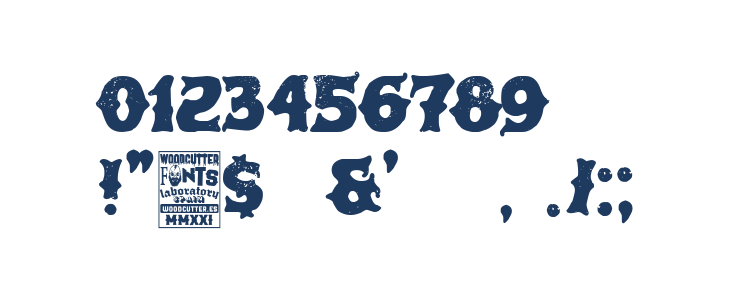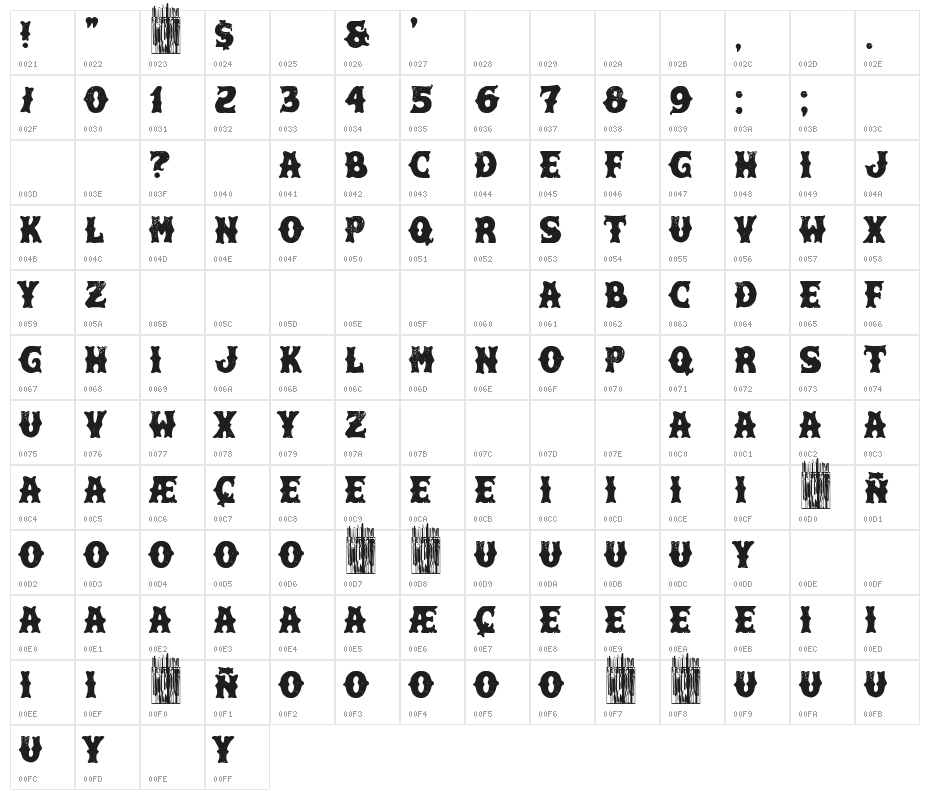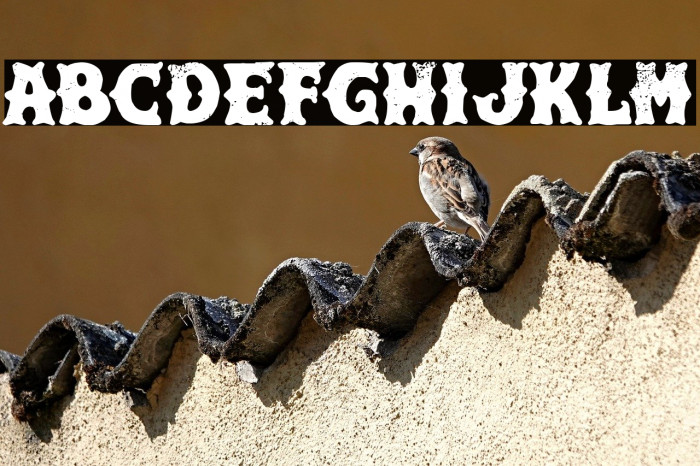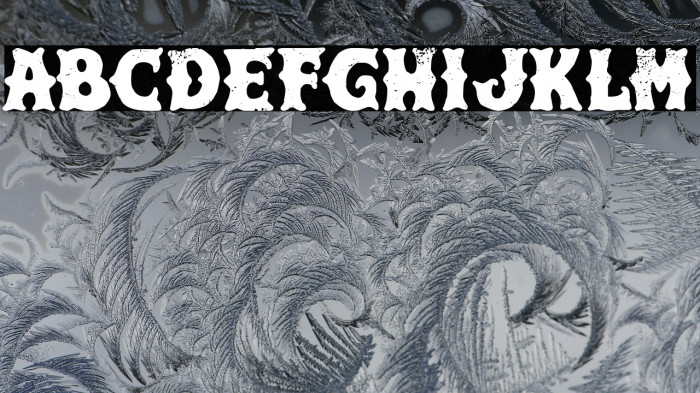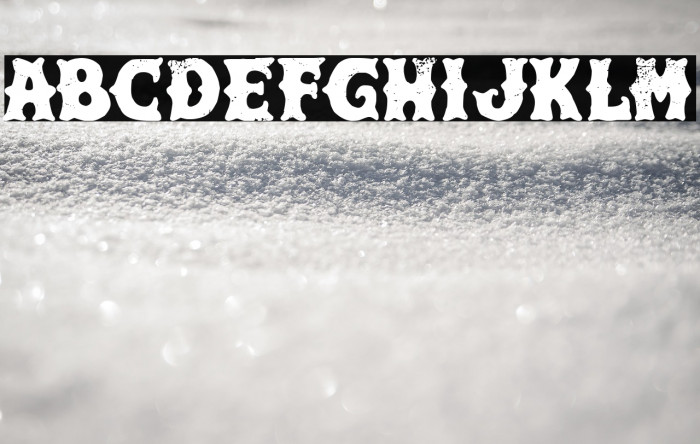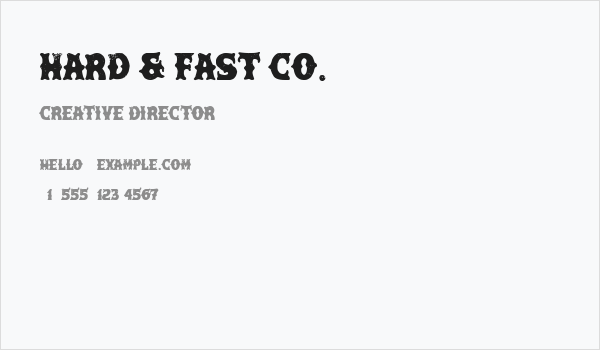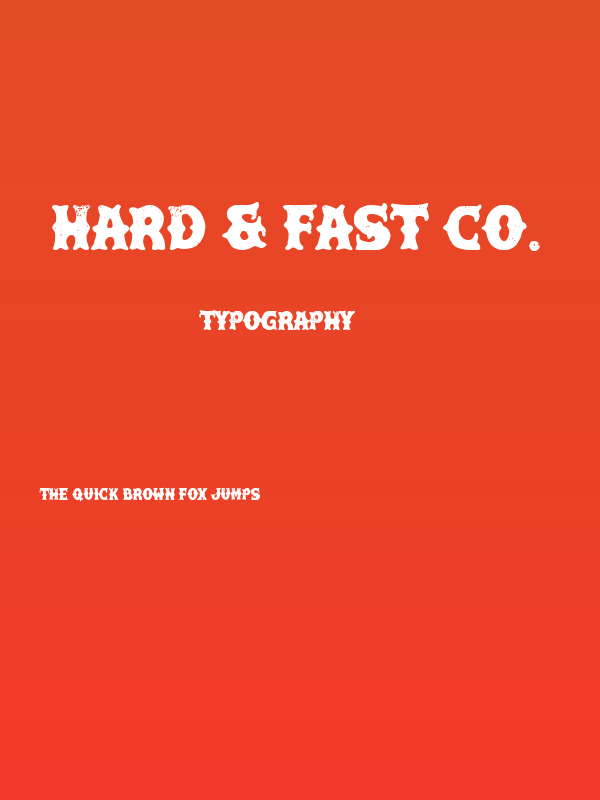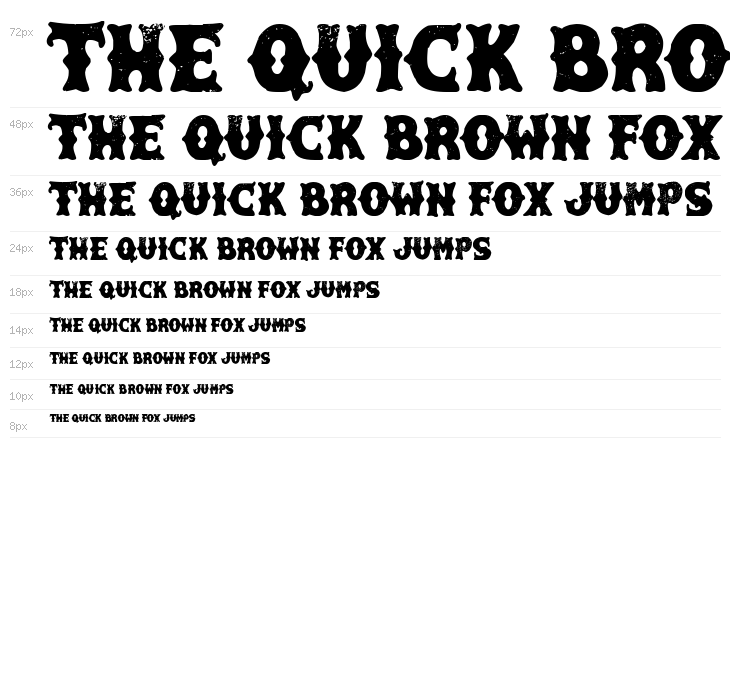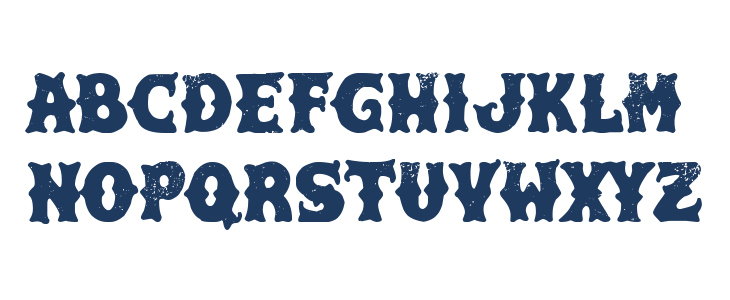
Hard & Fast Co. Font
Hard & Fast Co. Description
This font features a bold and rugged design with a distressed texture that gives it a gritty, worn appearance. The characters are thick and heavy, with irregular edges that create a sense of movement and energy. The uppercase and lowercase letters maintain a consistent style, while the numbers and special characters complement the overall aesthetic. This font's unique style is reminiscent of vintage posters and signage, making it ideal for projects that require a bold, eye-catching display.
| Overall Style | Vintage |
| Proposed Projects | Perfect for posters, album covers, branding, and any project needing a bold, vintage look. |